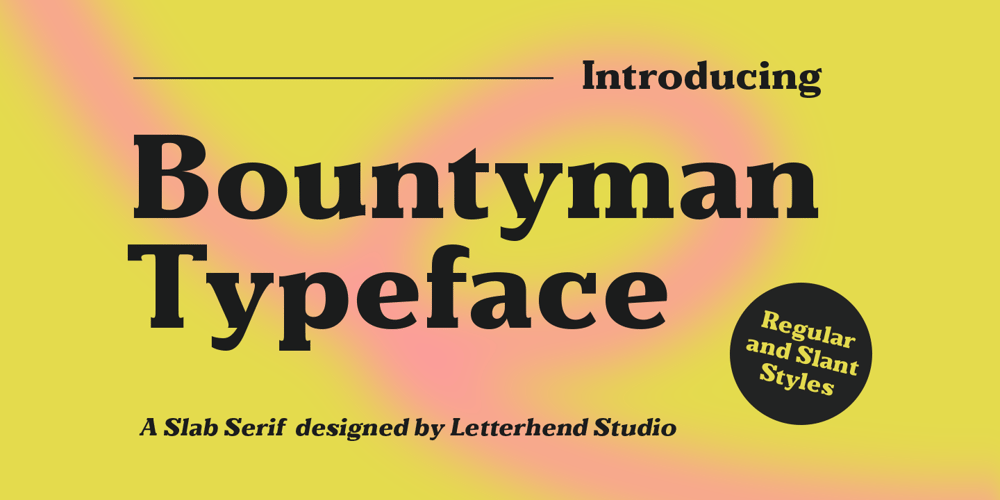
Bountyman
Bountyman font
Bountyman Font Family was designed by Hendry Juanda and published by Letterhend. Bountyman contains 2 styles and family package options. Bountyman is a slab serif typeface with slant version. Perfectly to be applied to the other various formal forms such as invitations, labels, logos, magazines, books, greeting / wedding cards, packaging, fashion, make up, stationery, novels, labels or any type of advertising purpose.Features : Regular & Slant version Uppercase & lowercase Numbers and punctuation Multilingual PUA encoded We highly recommend using a program that supports OpenType features and Glyphs panels like many of Adobe apps and Corel Draw, so you can see and access all Glyph variations.